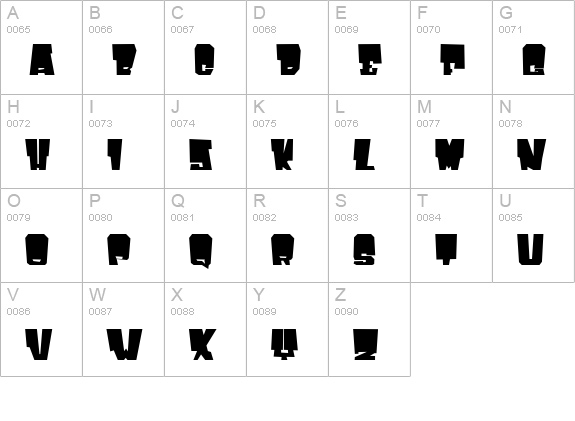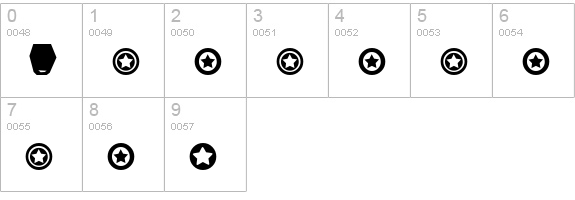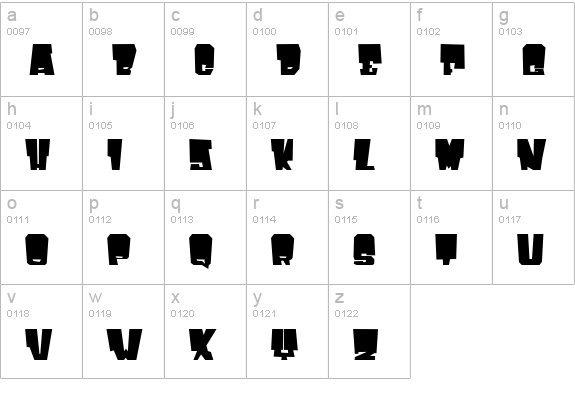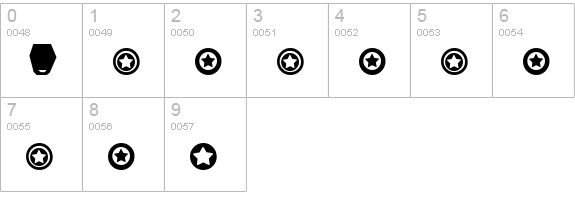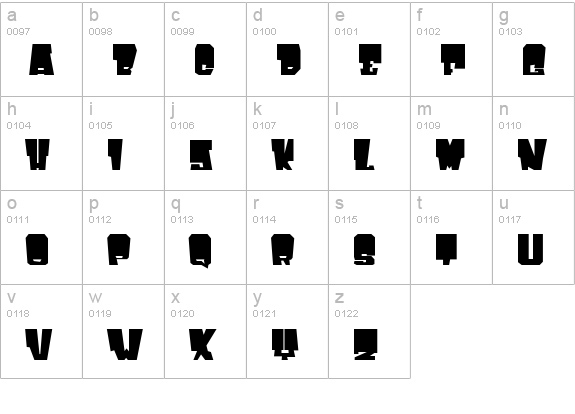
DepressiveManic Font Details
Introducing DepressiveManic font, a unique and versatile typeface that captures the essence of both depression and mania. This font features a delicate balance of somber and erratic elements, making it ideal for conveying complex emotions and adding a touch of raw authenticity to your designs. DepressiveManic font is freely available for download at FontsMarket.com, allowing you to easily incorporate its edgy and expressive style into your projects. Whether you're looking to create impactful posters, emotional poetry layouts, or thought-provoking social media graphics, this font offers a powerful tool to bring your ideas to life. With its intricate detailing and bold presence, DepressiveManic font is a must-have for designers seeking to make a statement and evoke strong emotions in their audience. Explore the depths of creativity with this striking and evocative typeface, and let your designs speak volumes with every character.